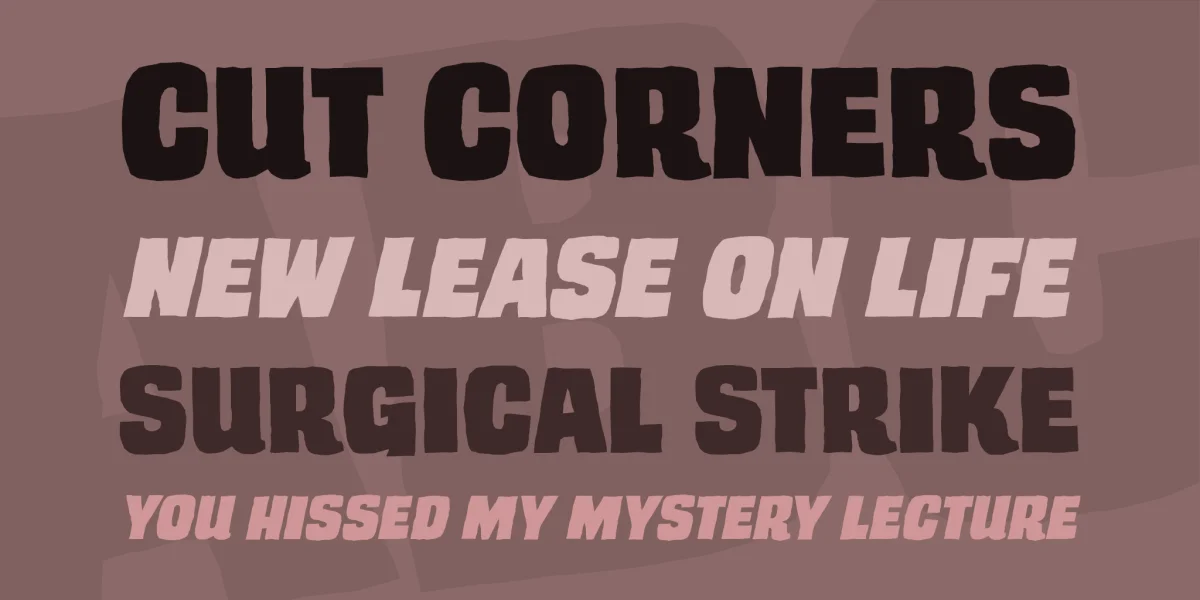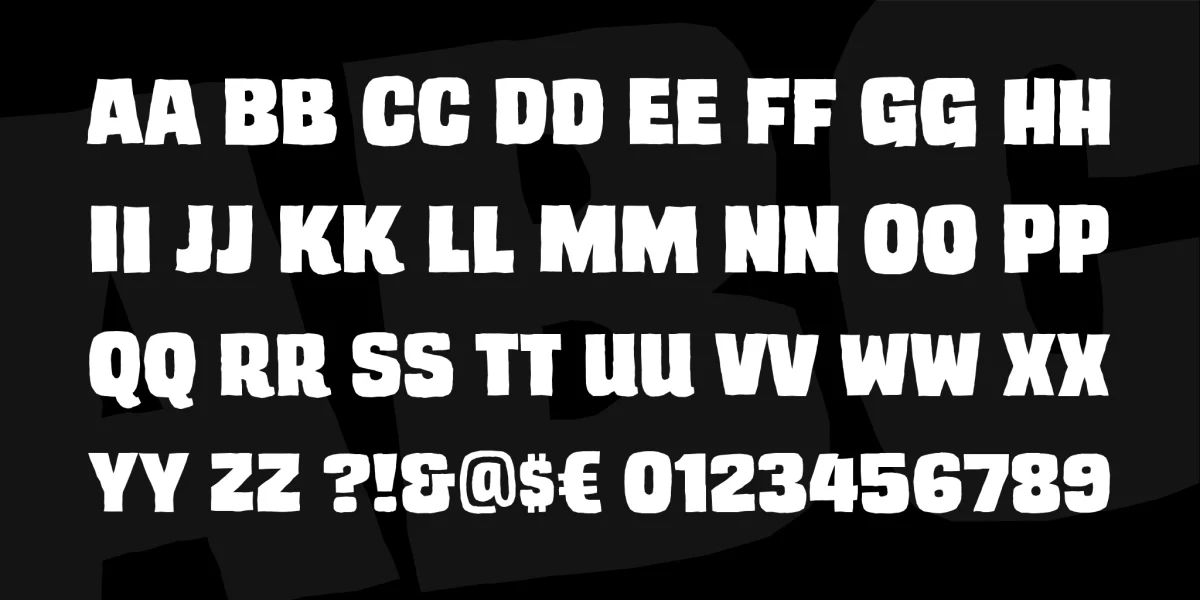
Inspired by cheesy, B-movie posters, TRASH CINEMA has slightly different upper and lower characters for a more hand-lettered look. This beefy, sans-serif font makes a big impact. Like an alien spacecraft landing in your backyard.